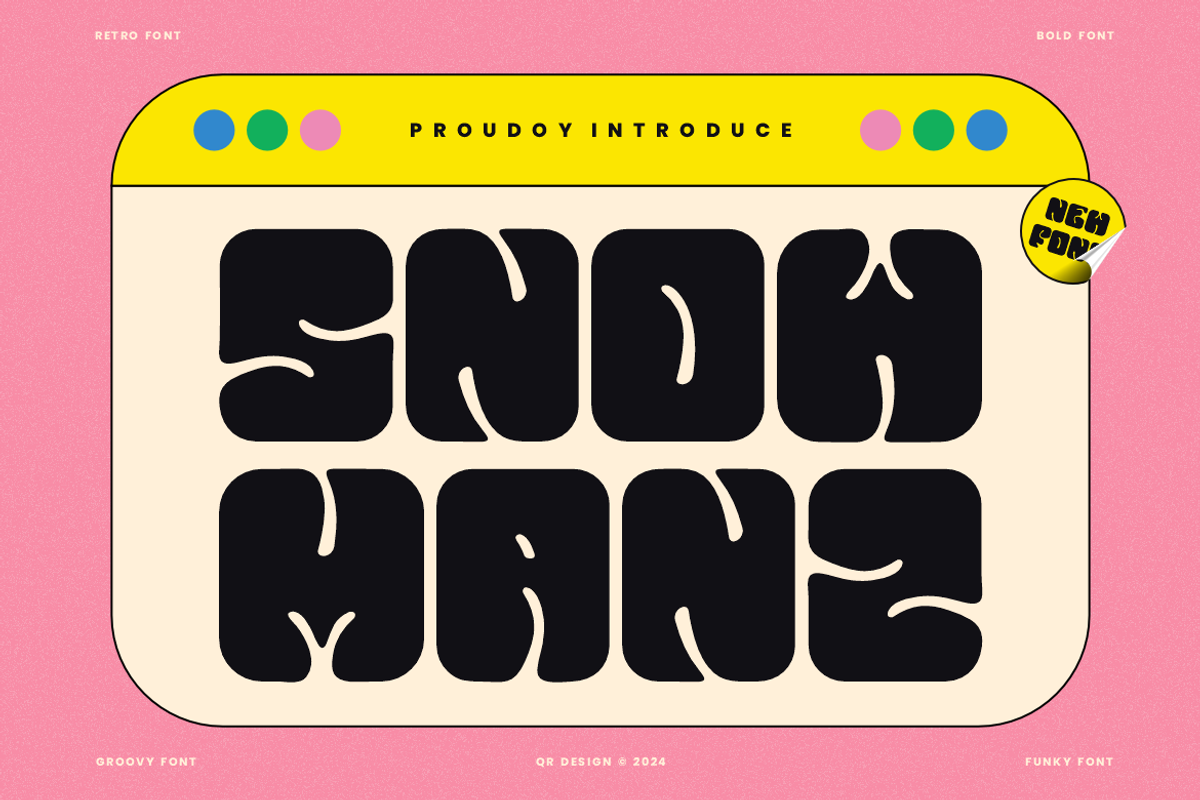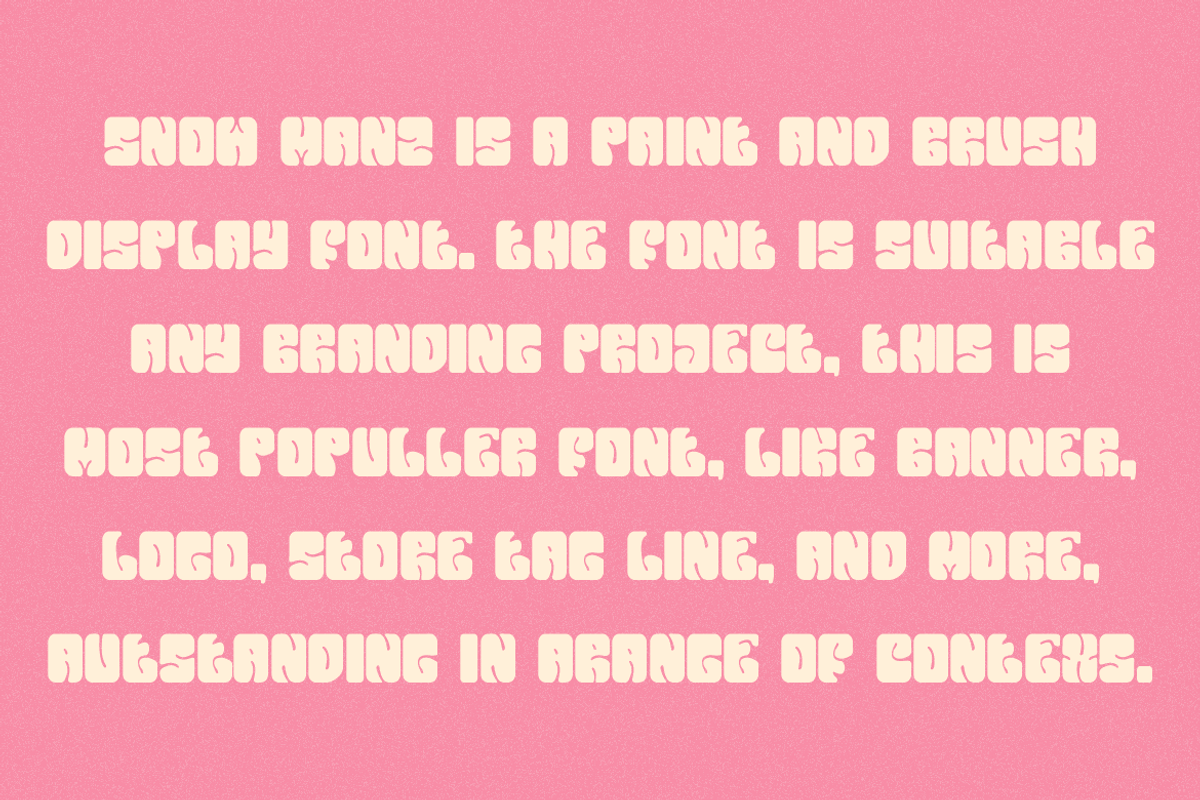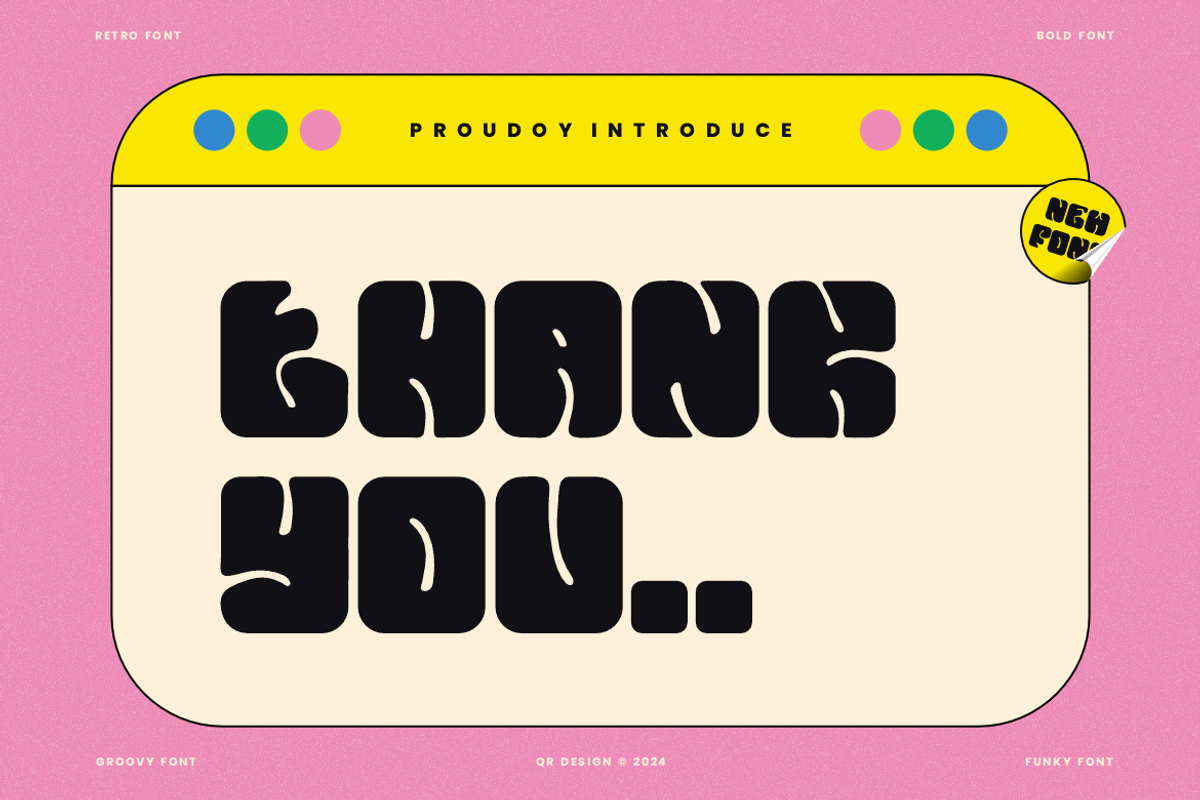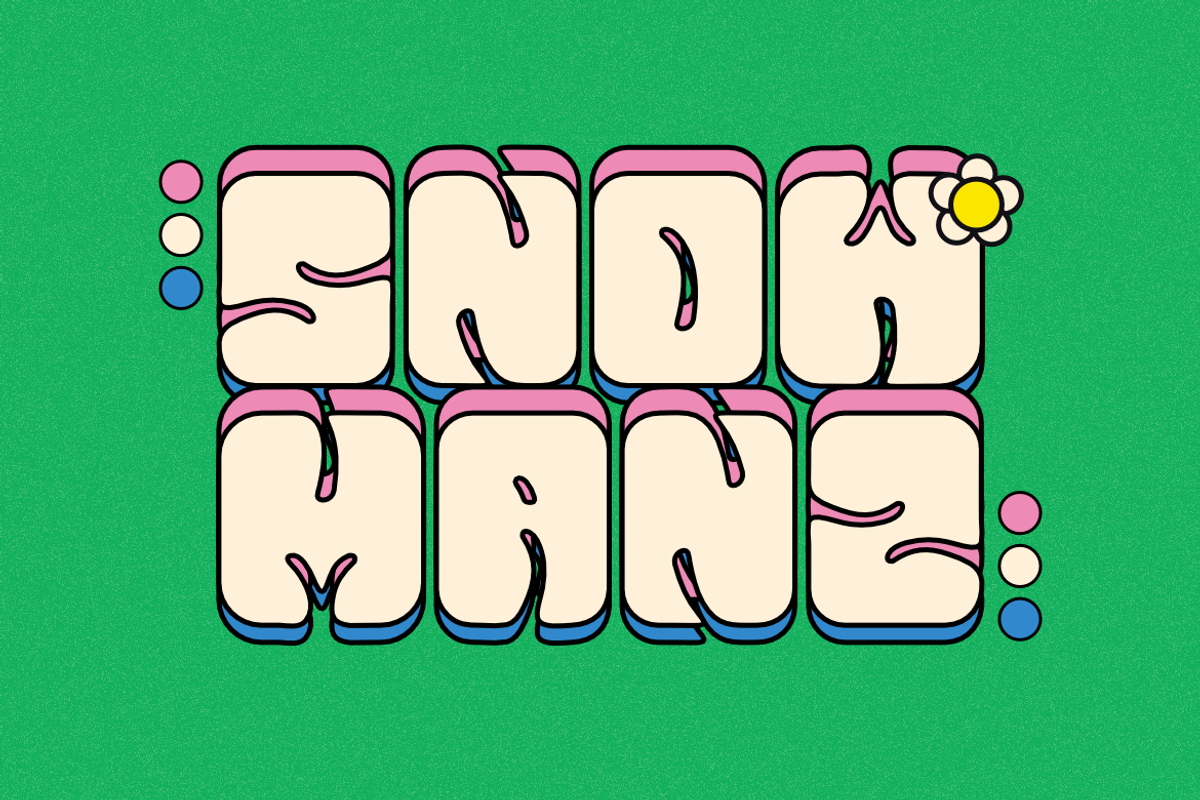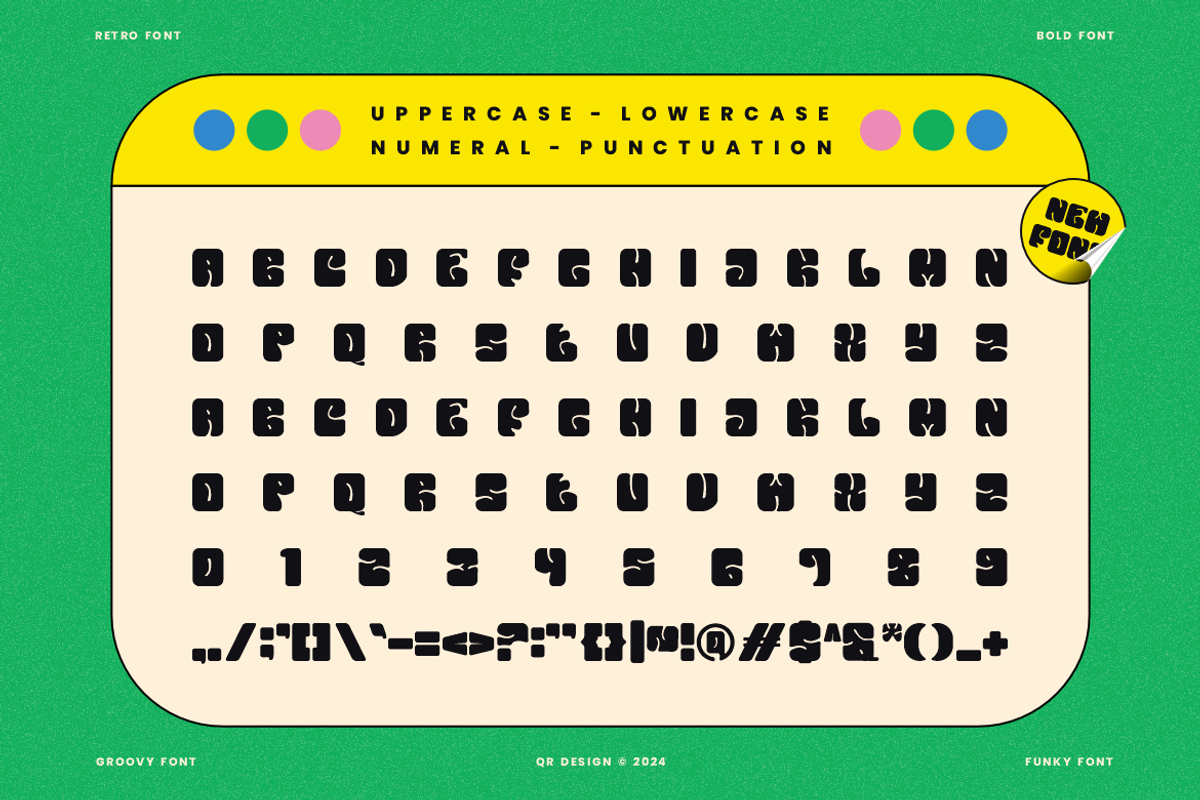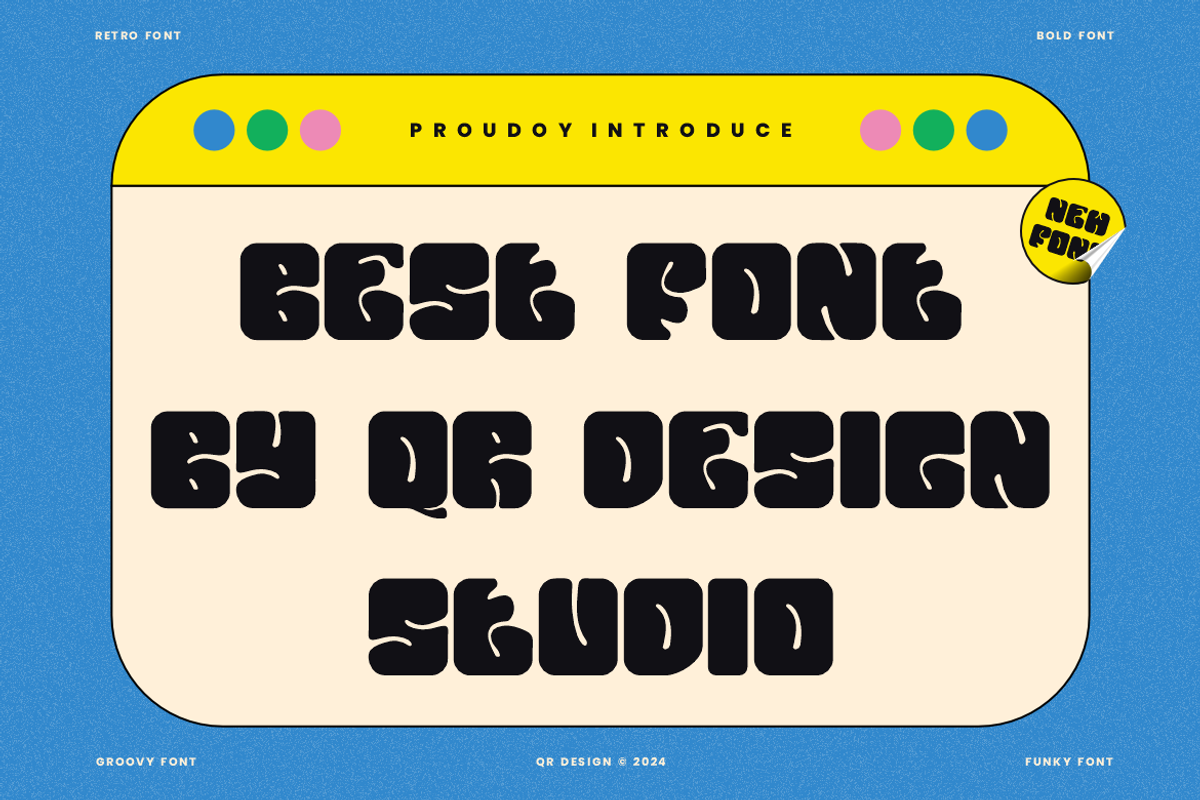
Snow Manz - Groovy & Funky Font
Snow Manz - Groovy Font is a bold and authentic display font. The font is suitable for any branding project like poster, logo, sport, and many more. Outstanding in a wide range of contexts.